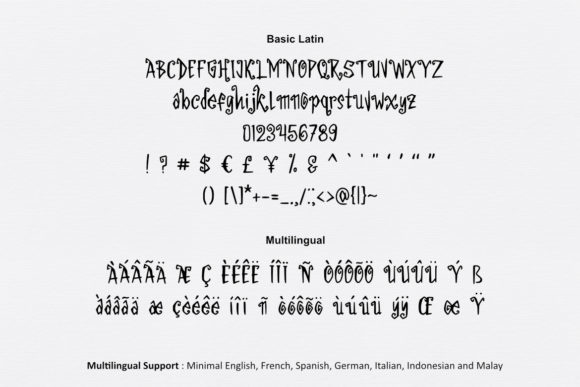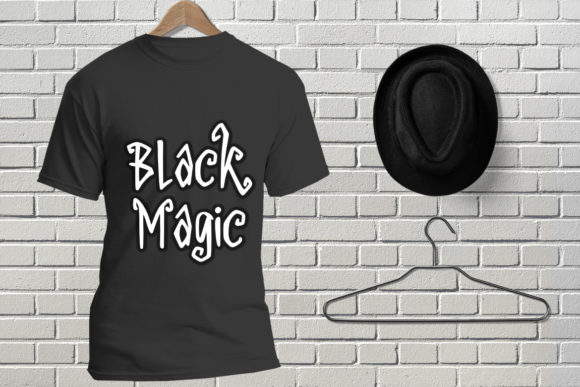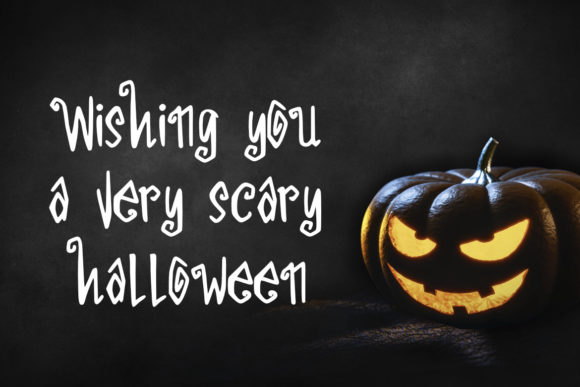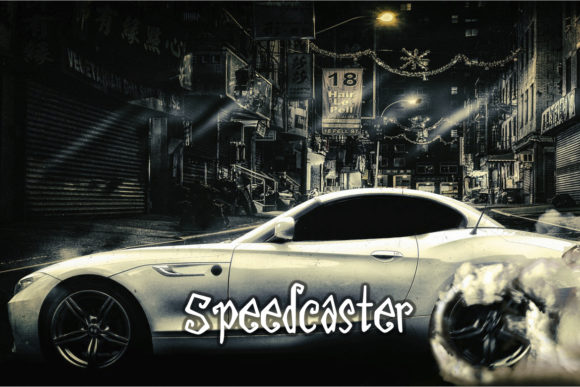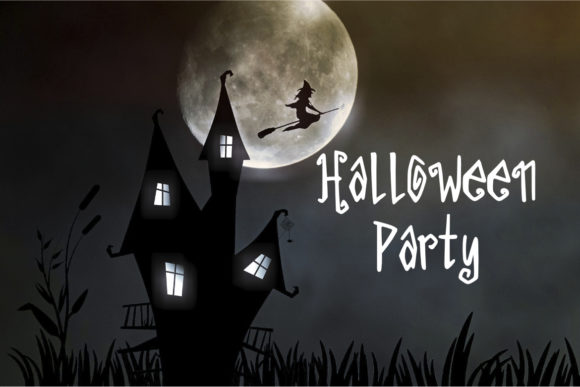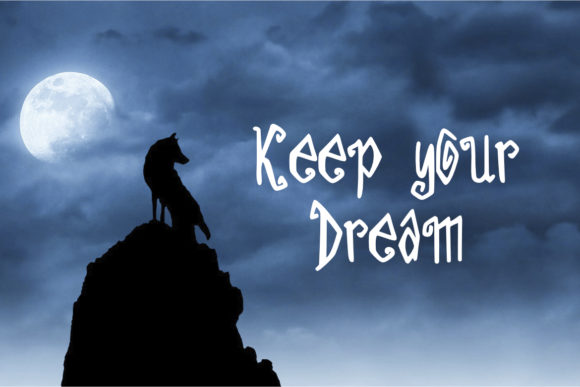
Graveyard Font
About Graveyard Font
Graveyard feels equally charming and elegant. This font is the perfect fit for all of your logos, branding, social media, and crafty DIY projects.